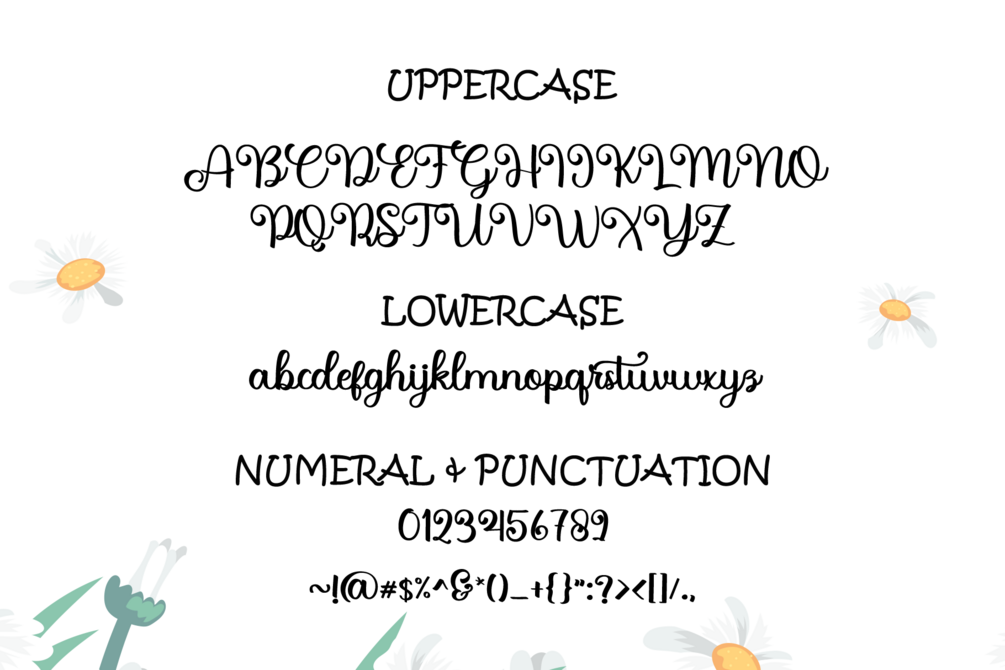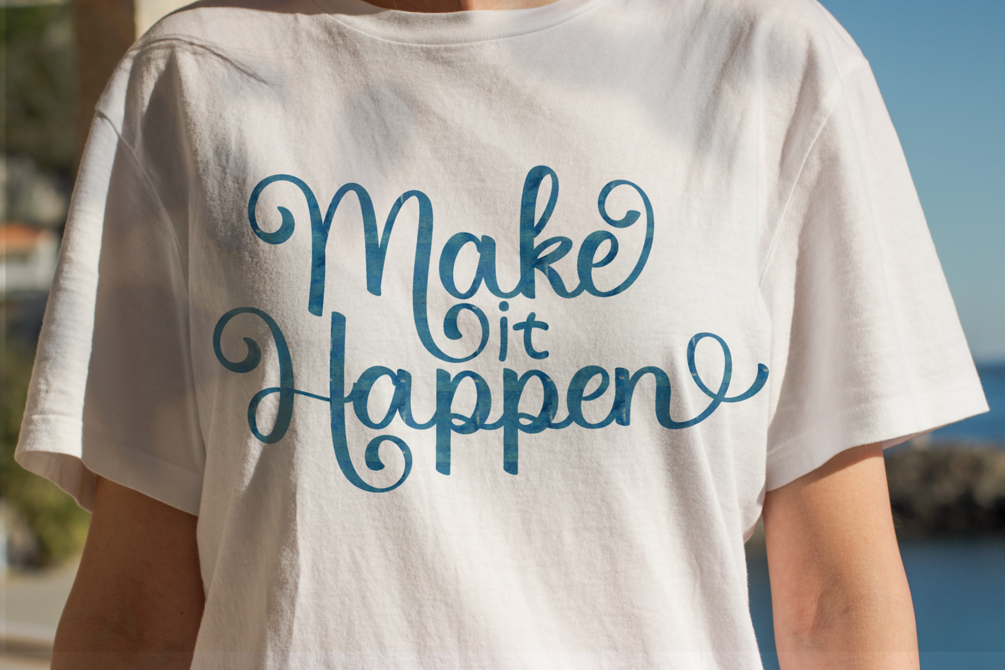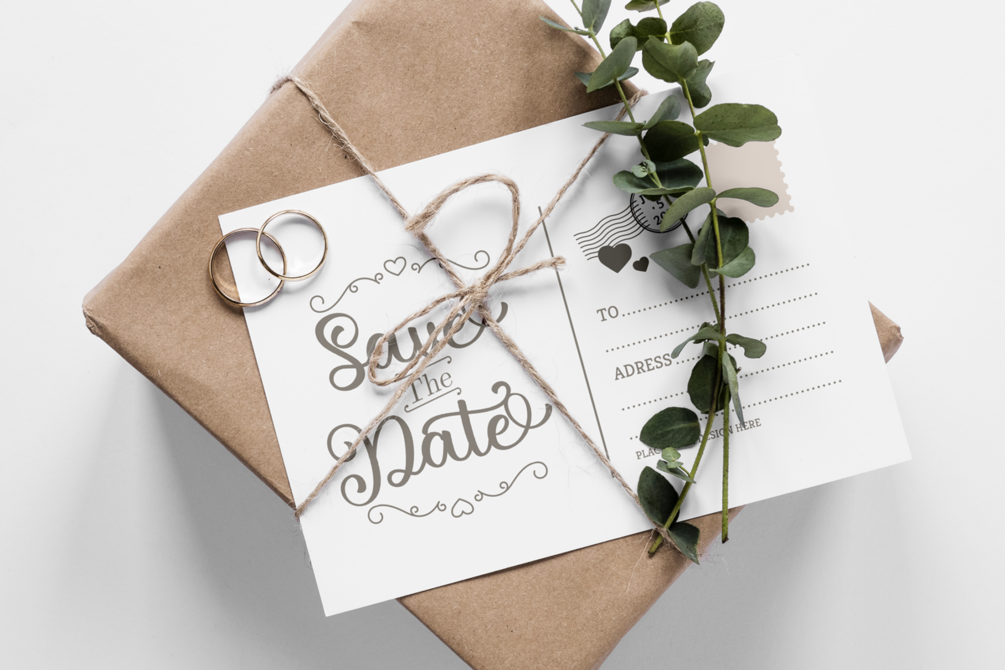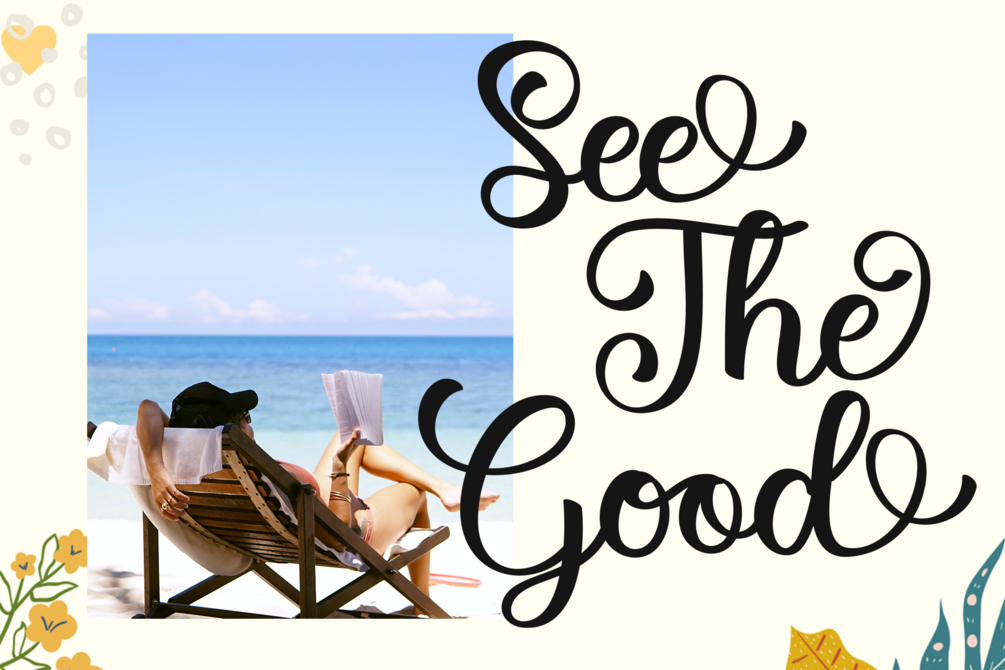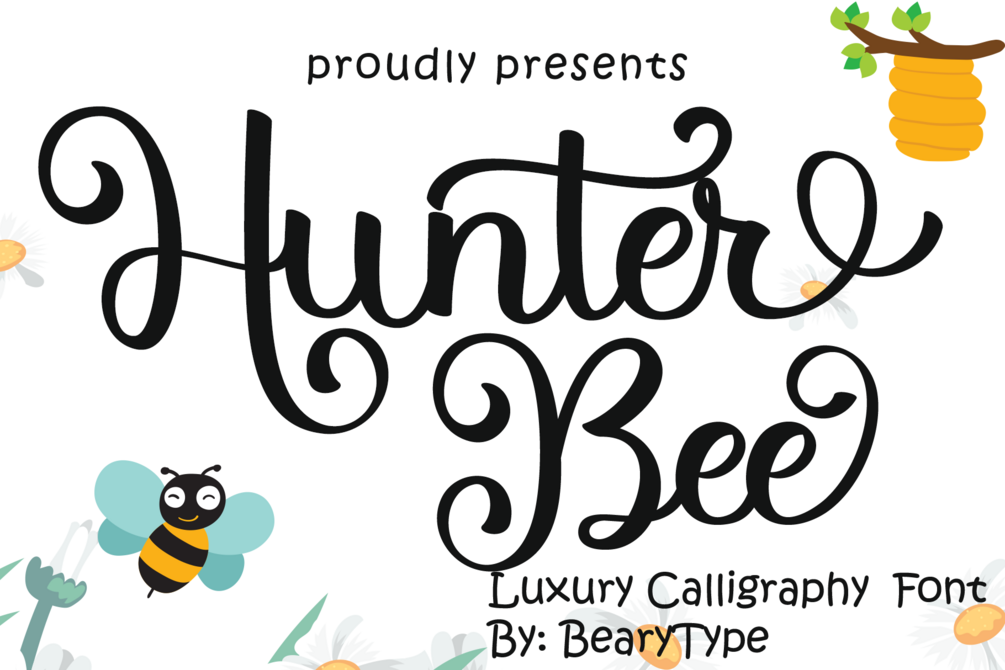
Hunter Bee β Amazing Hand Lettering Font with Natural & Attractive Style + Bonus Vector
Hunter Bee is an amazing hand lettering script font that looks natural, attractive, and beautifully crafted. Every single letter is carefully designed to deliver authentic handwritten charm and smooth flow. With 279 glyphs, including 81 alternate characters, multilingual support, and a lifetime commercial-use bonus vector pack, this font is perfect for wedding invitations, branding, logos, mugs, posters, packaging, social media graphics, Cricut projects, and DIY crafts.
- 81 Alternate Characters
- Ligatures
- Multilingual Support